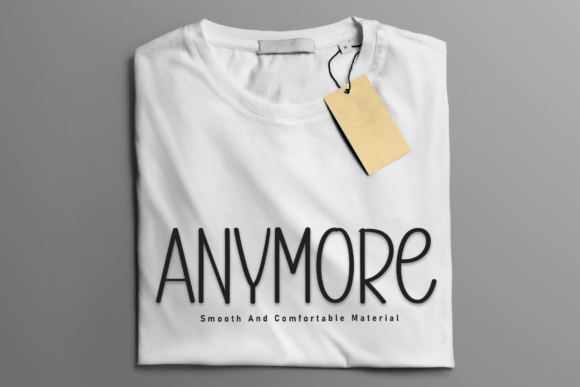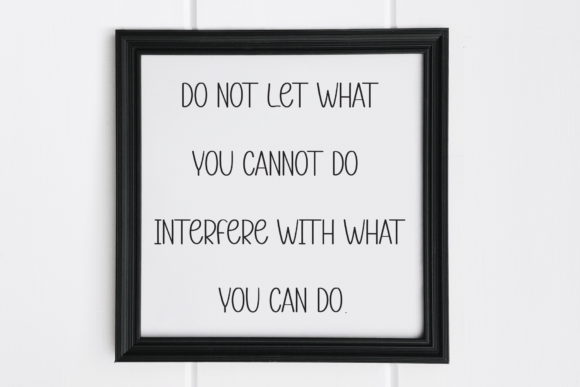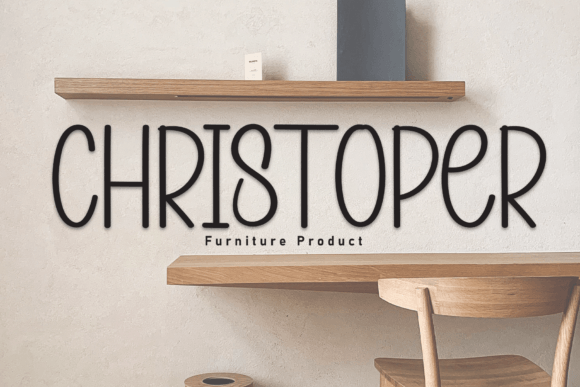
Introduction to Daddy Santa Font
As a designer, have you ever been on a creative roll, pouring your heart into a project, only to be stumped by the perfect font? The one that captures the essence of your idea, yet feels effortless and charming? For me, that moment came when I stumbled upon the Daddy Santa Font.
This casual handwritten font is a game-changer for designers looking to add a high-quality, personal touch to their projects. With its natural, flowing strokes, Daddy Santa Font brings a sense of warmth and authenticity to any design. And the best part? It’s available for a free download, making it an invaluable design resource for creatives on a budget.
Whether you’re working on a social media campaign, designing an invitation, or creating a brand identity, Daddy Santa Font is the perfect addition to your toolkit. Its transparent background and easygoing style make it a versatile choice for any project, and its charm is sure to leave a lasting impression on your audience.
Key Features of Daddy Santa Font
- High-quality design resource suitable for creative projects and holiday-themed artwork.
- Transparent background, allowing for easy customization and integration with various design elements.
- Size: scalable to various sizes, ensuring it remains clear and legible in different contexts.
- Resolution: suitable for both print and digital applications, including high-resolution displays.
- Unique, playful design aesthetic that captures the spirit of the holiday season, making it perfect for ‘Daddy Santa’ themed projects.
Honest Review: Daddy Santa Font
I recently stumbled upon the Daddy Santa Font and was excited to give it a try. As a designer, I’m always on the lookout for high-quality design resources that can elevate my creative projects.
Here are some of the key features I’ve noticed:
- High-quality design with crisp lines and clear letterforms
- Wide range of styles and weights to suit different design needs
- Transparent background for easy use in various design applications
However, there are a few limitations I’ve encountered: ⚠️ The font is only available in a limited number of languages, which may be a issue for some designers. ⚠️ The font is not as versatile as some other fonts in the same category.
Overall, I’m impressed with the Daddy Santa Font and would definitely recommend it to designers looking for a fun and playful font for their creative projects.
Use Daddy Santa Font in combination with other festive graphics and designs to create a cohesive holiday look. Experiment with different font sizes, colors, and styles to add depth and interest to your design. Use the font to create custom holiday cards, invitations, and gift tags.
Common Use Cases for Daddy Santa Font
Daddy Santa Font is perfect for holiday-themed designs, including Christmas cards, gift tags, and invitations. Use the font to create custom holiday graphics, social media posts, and website banners. The font is also great for designing holiday-themed merchandise, such as t-shirts, mugs, and stickers.
Can I customize the Daddy Santa Font to fit my design needs?
Yes, the Daddy Santa Font is fully editable and can be customized to fit your design needs. You can use font editing software to modify the font’s style, size, and color to suit your creative project. The font’s transparent background also makes it easy to combine with other design elements and create unique visual effects.